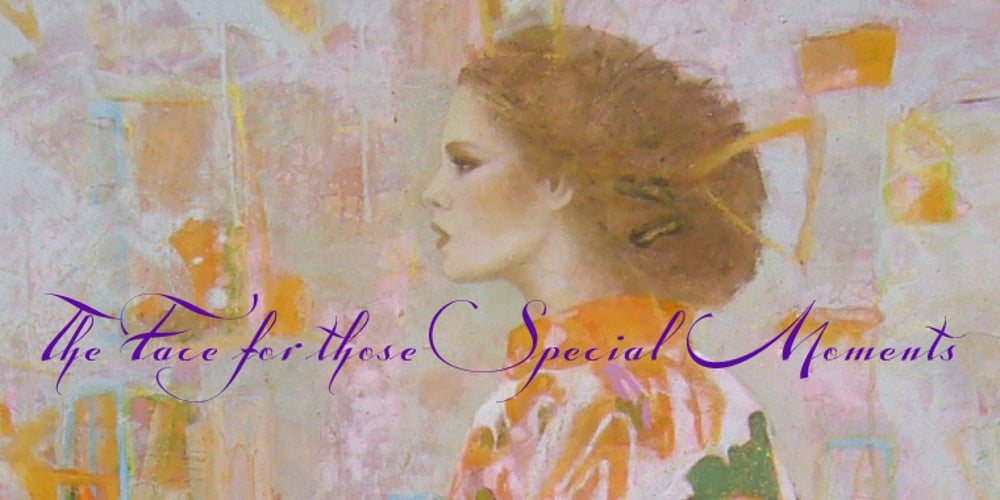
Tosca Font Family was designed by Gert Wiescher and published by Wiescher Design. Tosca contains 1 styles and family package options. Tosca is a very elegant and decorative typeface with 730 glyphs. I put a second set of capital letters in the places of the smallcaps. So just type the word in lowercase, then select the first letter and convert it to smallcap in the OpenType menu. I also give you a ton of ligatures that can be accessed via OpenType. I am slowly learning to use these OpenType features, it is fun, but it is a lot of work. Your forever learning type-designer Gert Wiescher